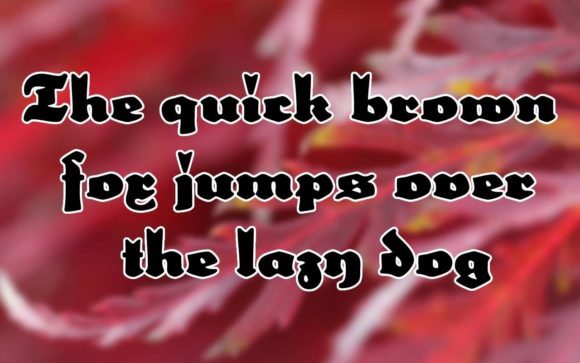
Introduction to Schulze Werbekraft Font
Schulze Werbekraft is a stunning blackletter font.
Bold and impressive, this typeface is perfect for labels, posters, covers, or any item that needs to stand out Author: Peter Wiegel.